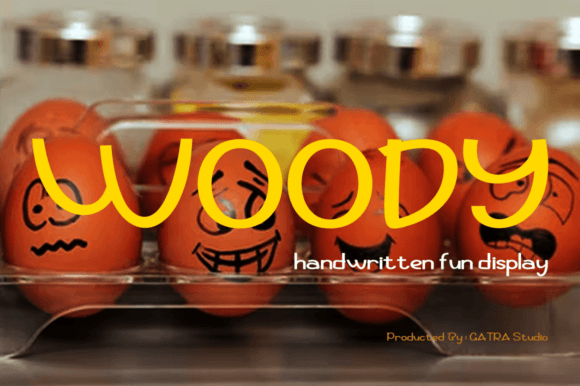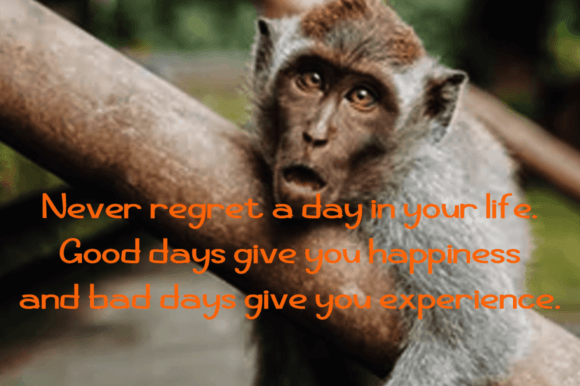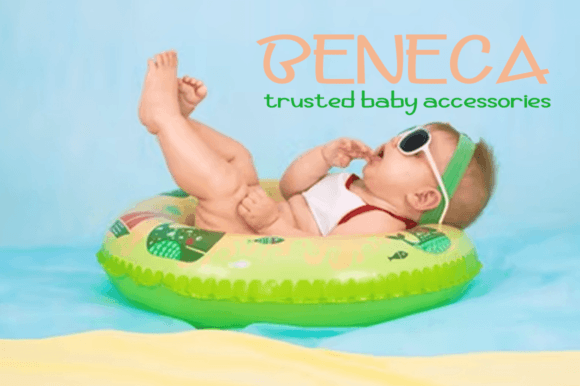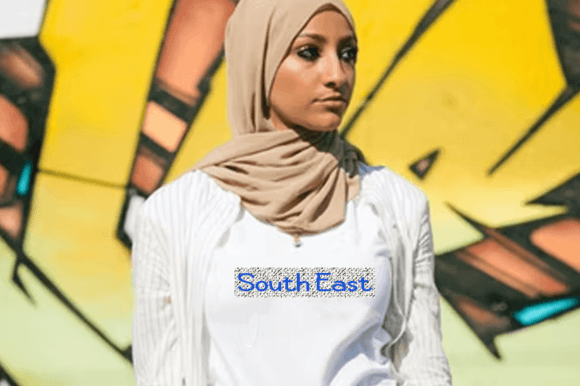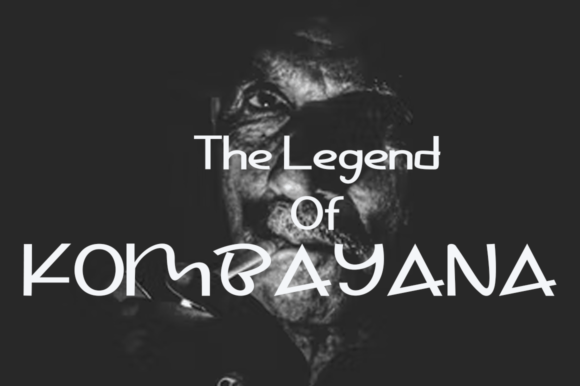
Woody Font
About Woody Font
“Woody: Where Casual Charm Meets Modern Calligraphy in Typography
Introducing Woody, a cute handwritten font designed for crafters and designers seeking a touch of casual elegance and modern calligraphy in their creations. With its delightful charm and effortless style, Woody adds a playful yet sophisticated vibe to any design project. Whether you’re working on crafts, branding, invitations, quotes, social media graphics, or any creative endeavor that craves a blend of casual charm and modern flair, Woody seamlessly integrates into your designs, quickly becoming your favorite font in no time at all.
The allure of Woody lies in its perfect blend of casual charm and modern calligraphy, where each letter is carefully crafted to exude playfulness and sophistication. Its flowing strokes and artistic detailing create a visual harmony that captures the essence of handwritten elegance with a touch of contemporary flair. Imagine your crafts adorned with Woody’s whimsical yet polished letterforms, radiating with creativity and warmth. Picture your branding materials featuring its modern calligraphic flair, instantly adding a touch of class and personality. With Woody, your designs exude a delightful energy, making them visually captivating and emotionally resonant.
One of Woody’s standout features is its versatility. Its casual charm and modern calligraphic style make it suitable for a wide array of design applications, from digital platforms to printed materials. Whether you’re crafting social media graphics or designing invitations for special occasions, Woody enhances your creations with its playful appeal, making them stand out with a unique blend of casual charm and contemporary elegance.
Moreover, Woody is more than just a font; it’s an embodiment of creativity and modern sophistication. Its casual charm and modern calligraphic allure resonate with individuals who appreciate the beauty of artistic expression, making it a favorite among crafters and designers seeking a font that effortlessly blends playful charm and contemporary style. Woody becomes a symbol of your creativity, allowing you to create designs that not only capture attention but also leave a lasting impression with a touch of delightful energy.
In a world where casual charm meets modern calligraphy, Woody helps you make a statement. It speaks the language of creative playfulness and sophisticated elegance, resonating with those who appreciate the beauty of artistic craftsmanship and contemporary flair. Whether you’re designing for digital platforms, branding, or special events, Woody becomes your trusted companion, guiding you toward design excellence.
So, why settle for ordinary when you can embrace the extraordinary with Woody? Let this cute handwritten font be the canvas for your creative expressions, and watch as your projects come to life with playful charm, modern elegance, and artistic sophistication. Let your creativity flow, and let Woody be the brushstroke that paints your ideas into visually captivating masterpieces, leaving a lasting impression on the hearts of your audience. Elevate your designs with Woody, where casual charm meets modern calligraphy, and transform your creations into works of art that resonate with the joy of creative expression and contemporary style.”